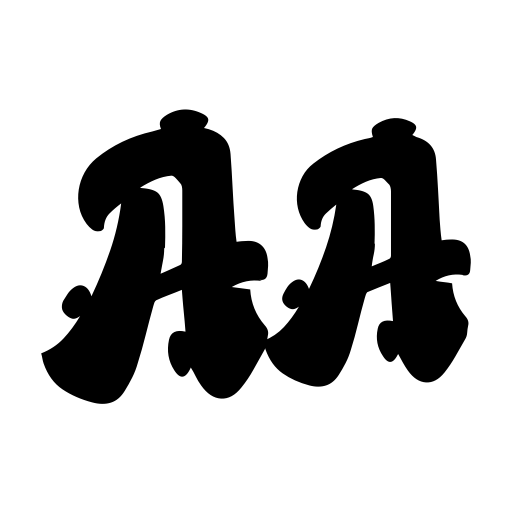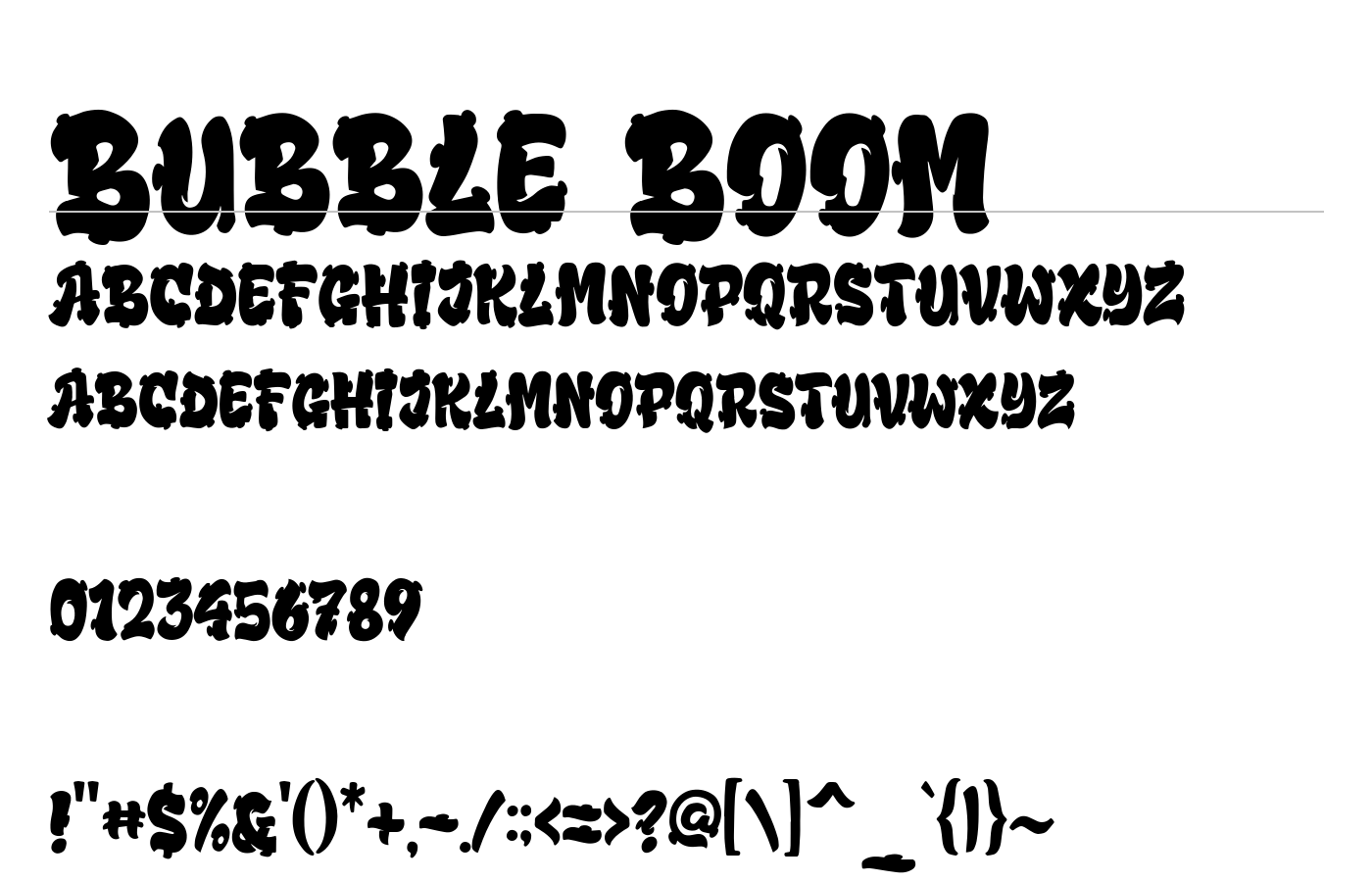
Bubble Boom is a playful and bold sans serif font with chunky, rounded shapes that give it a bubbly, cartoon-like feel. Its thick strokes and lively curves make it perfect for fun, informal designs such as children's products, party invitations, or eye-catching logos that need a sense of energy and friendliness. This font stands out in headlines or display uses where a joyful and dynamic impression is desired.
Bubble Boom Font
About Bubble Boom Font
| Font family | Bubble Boom Font |